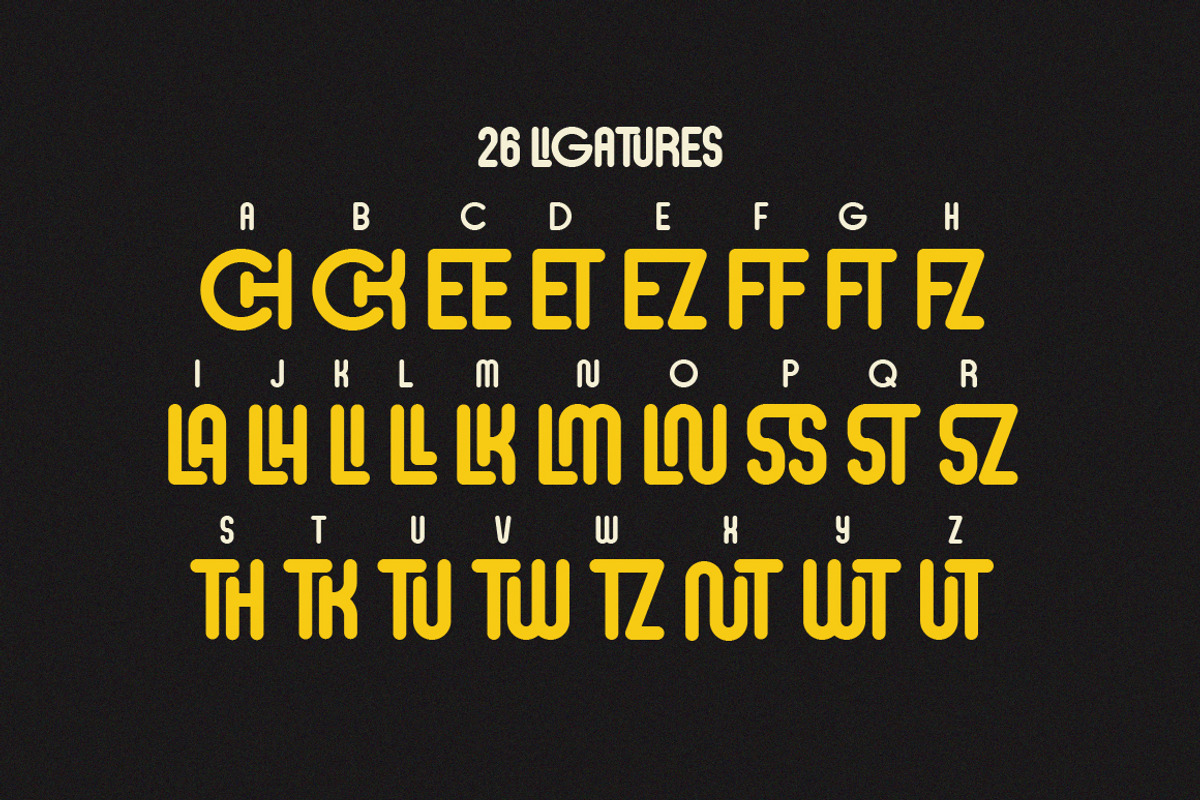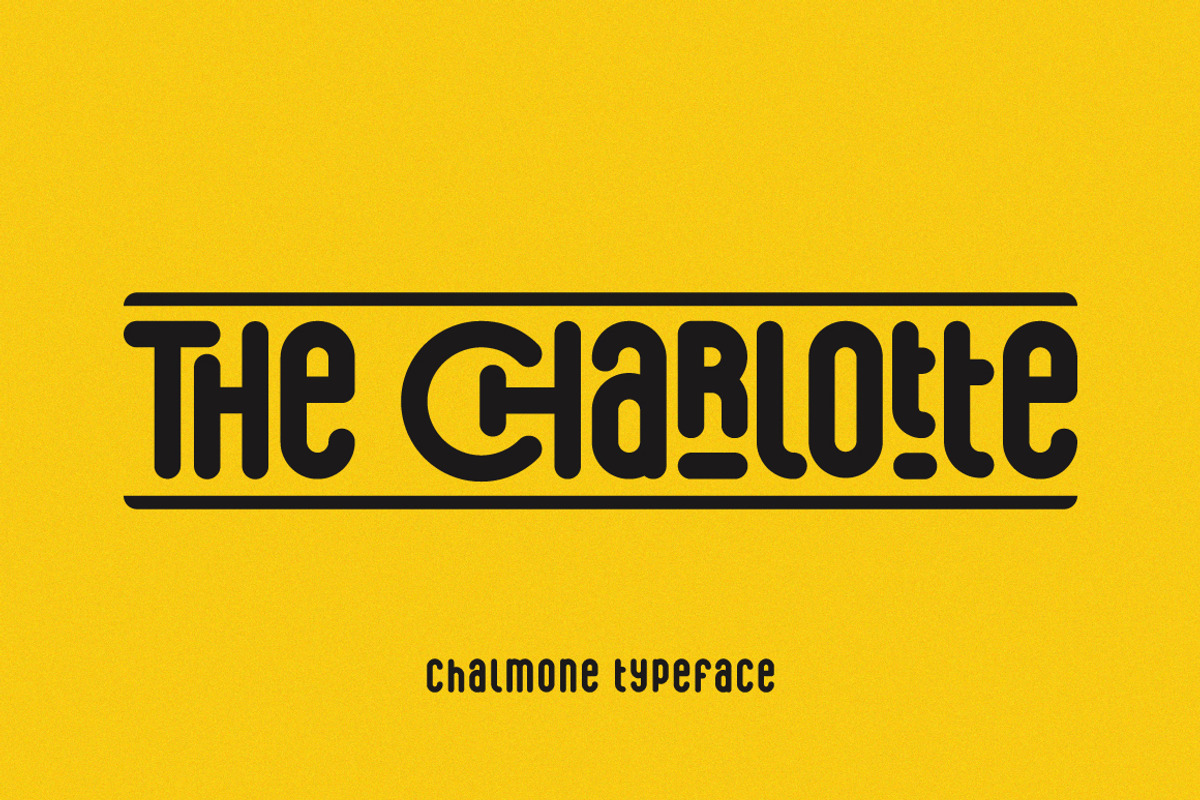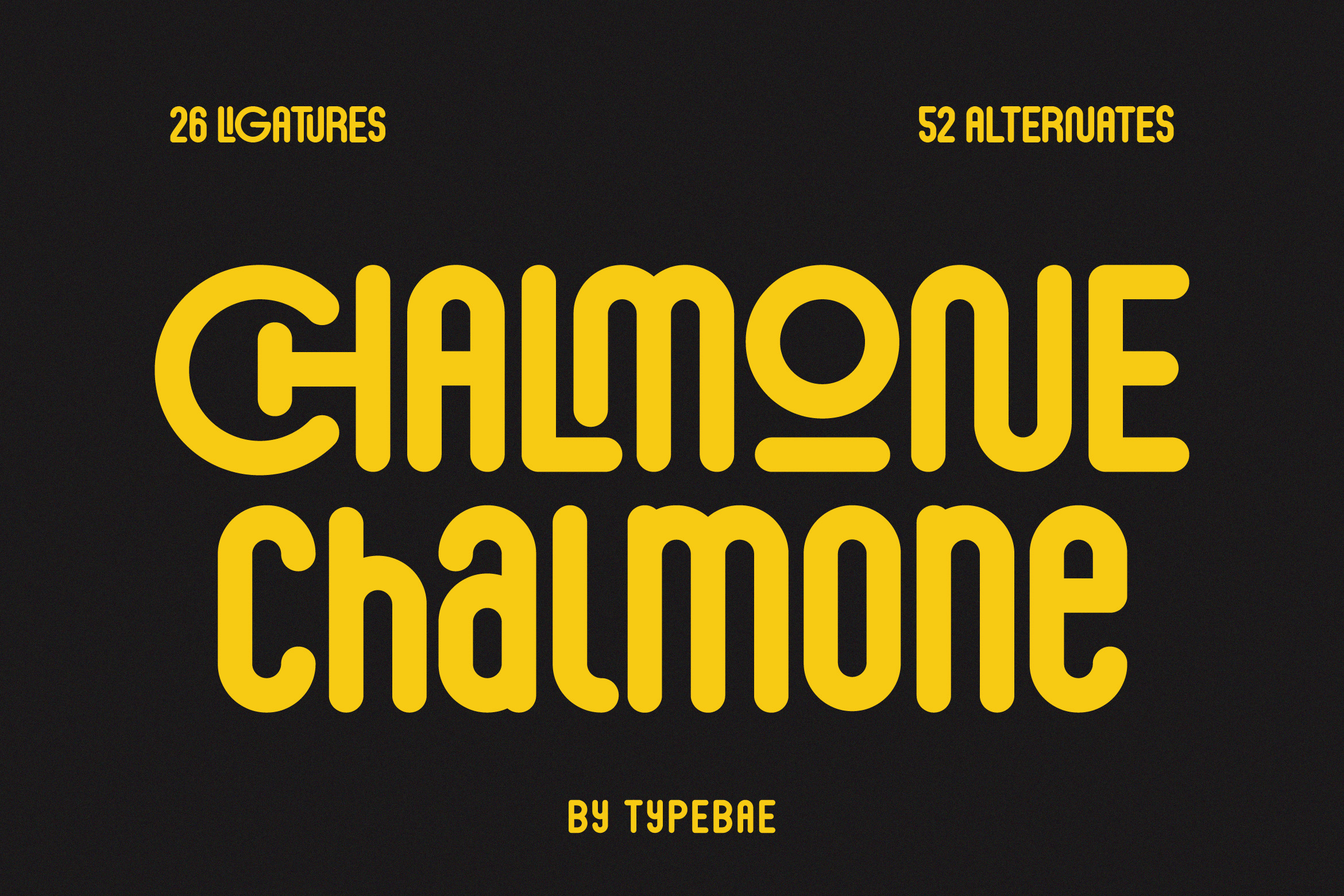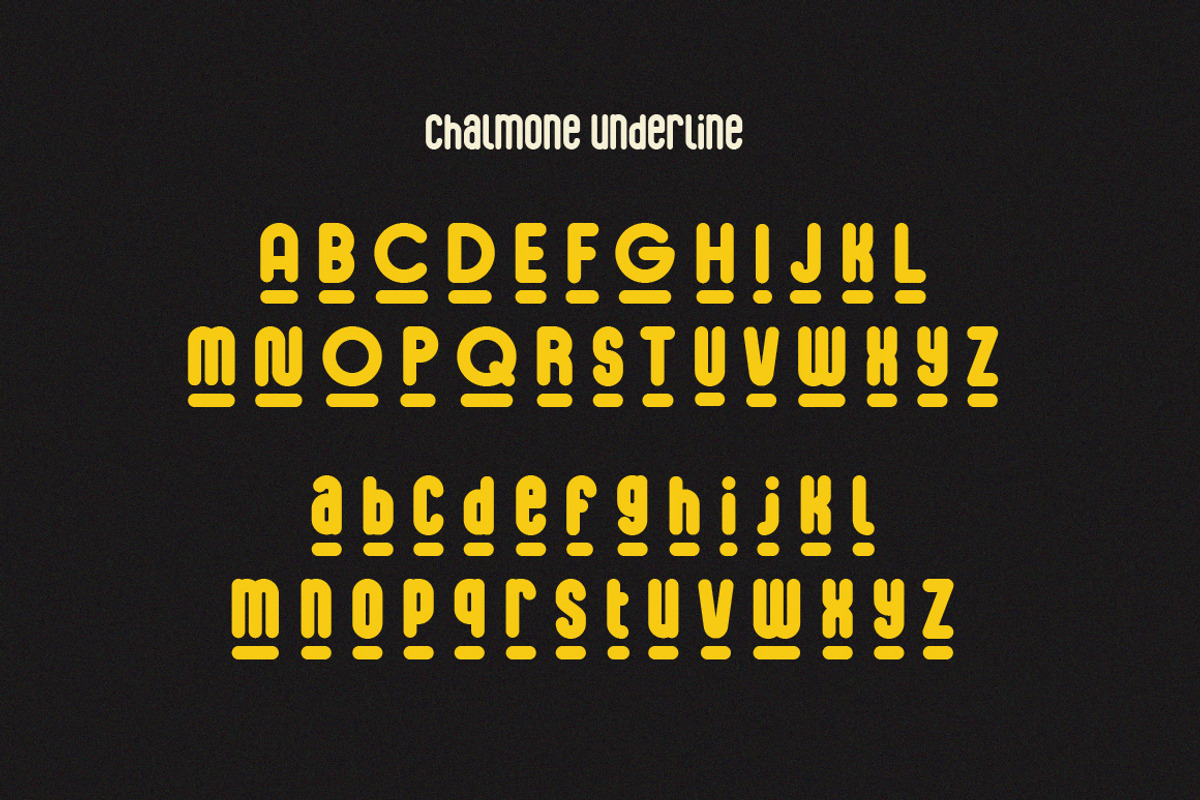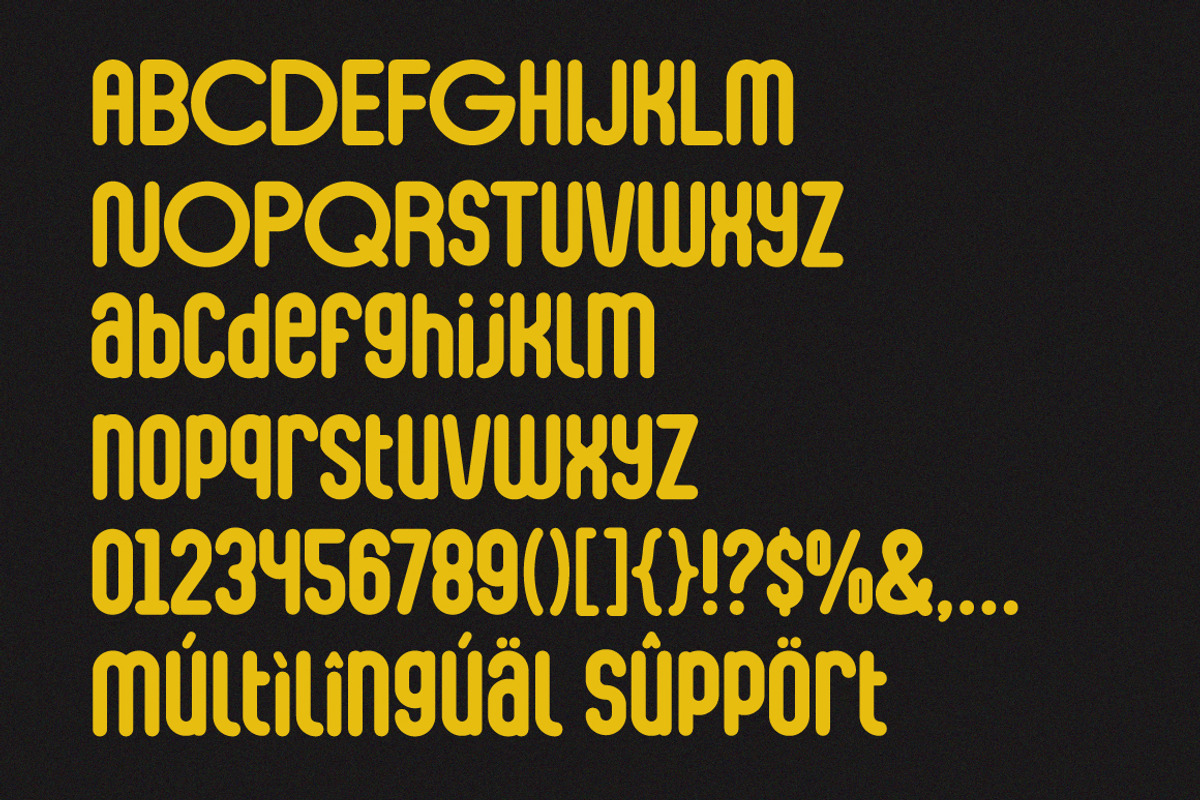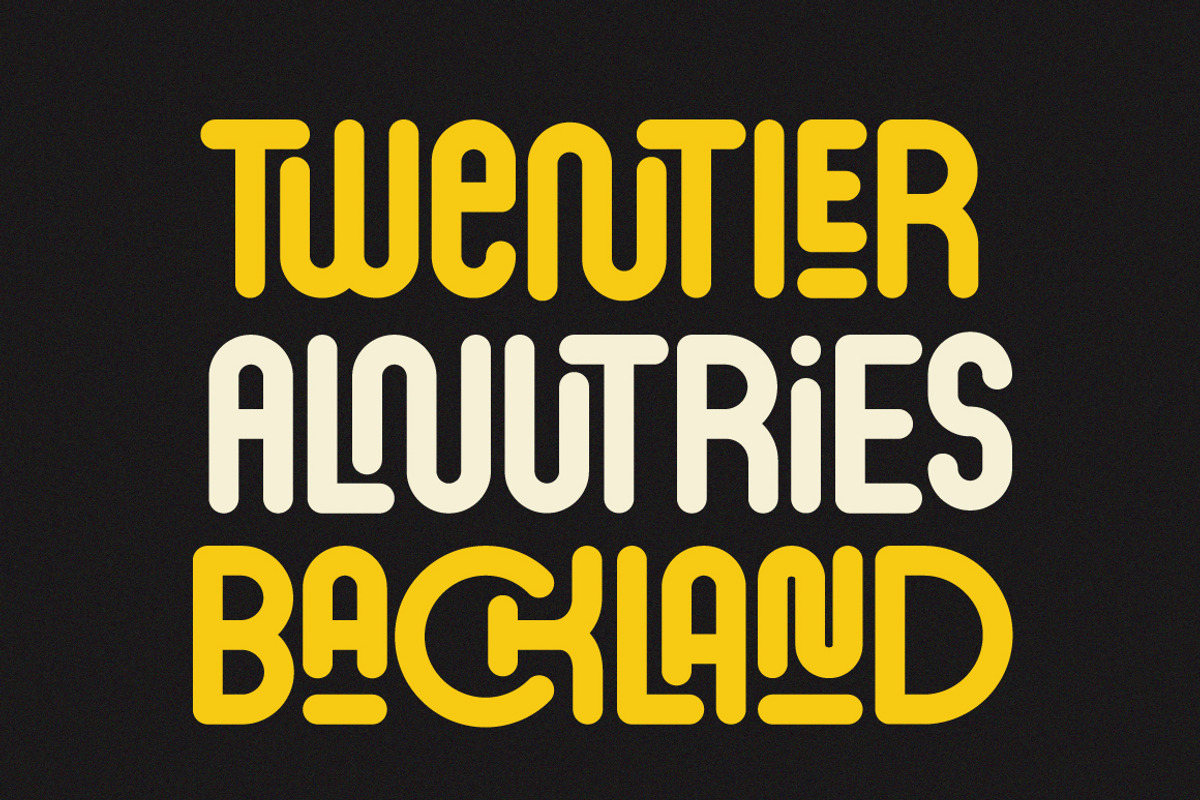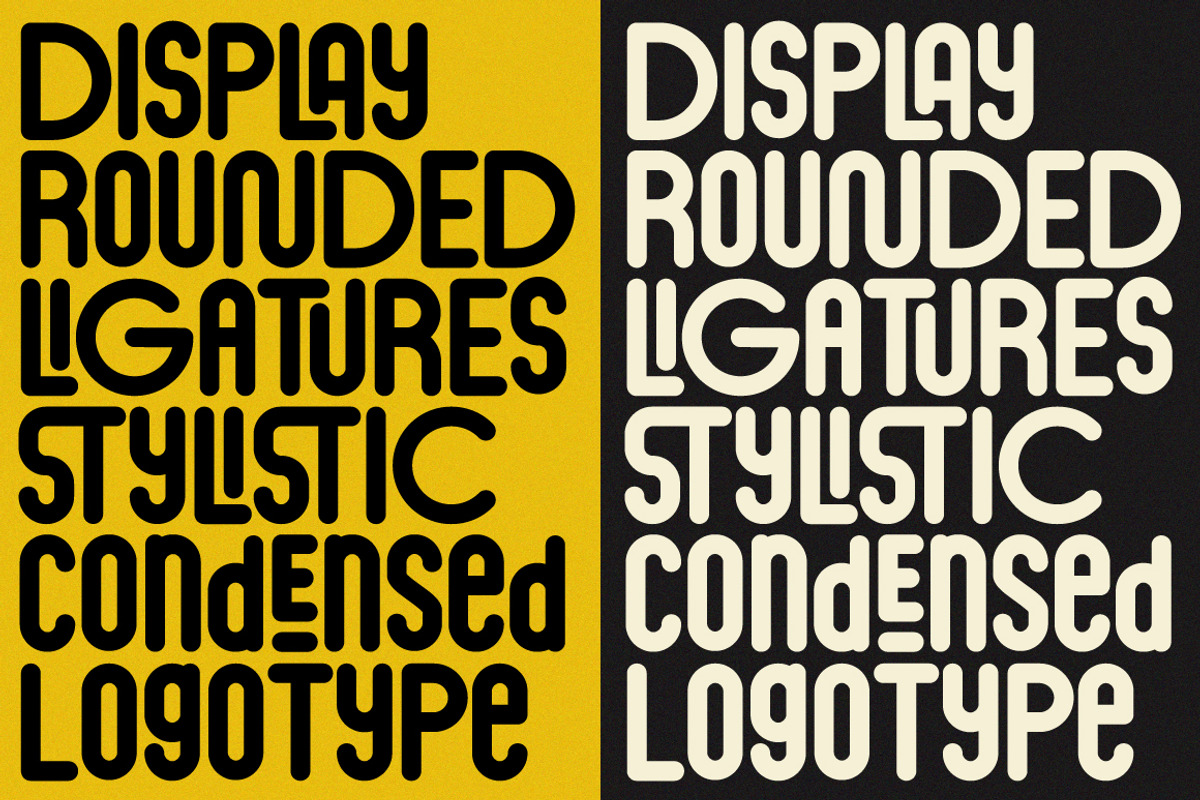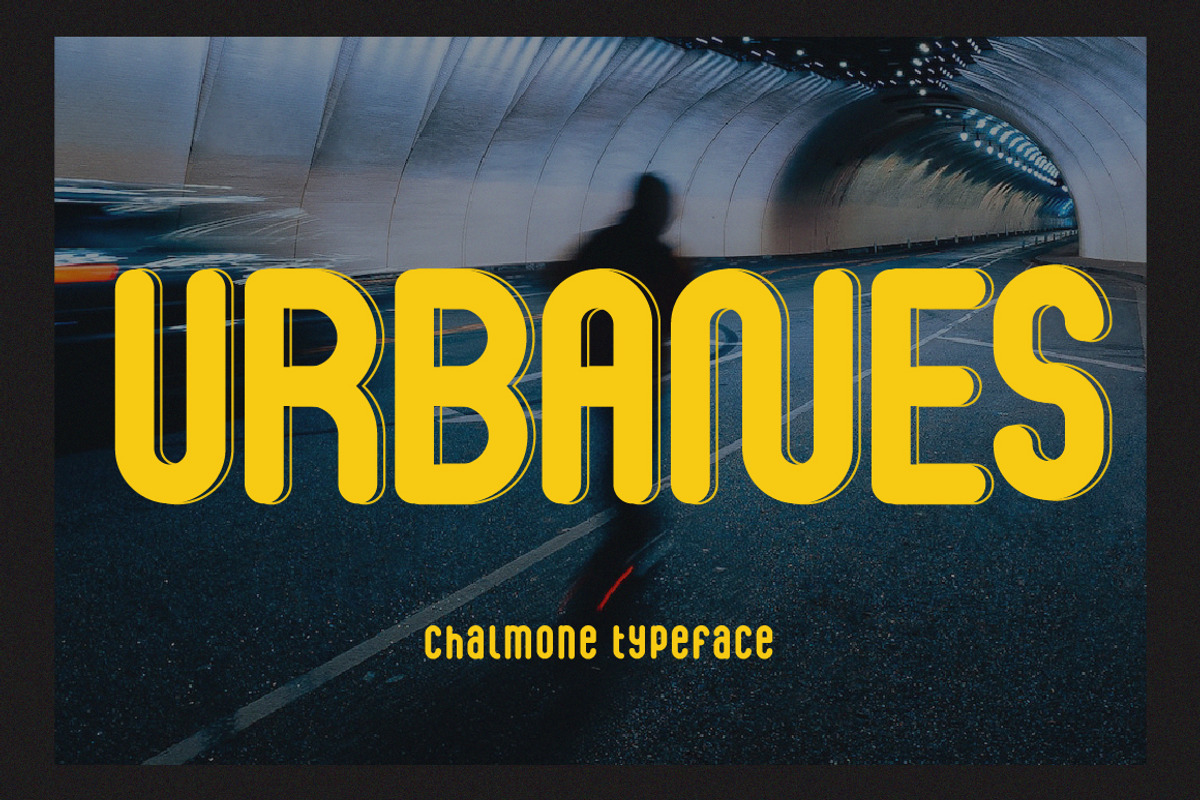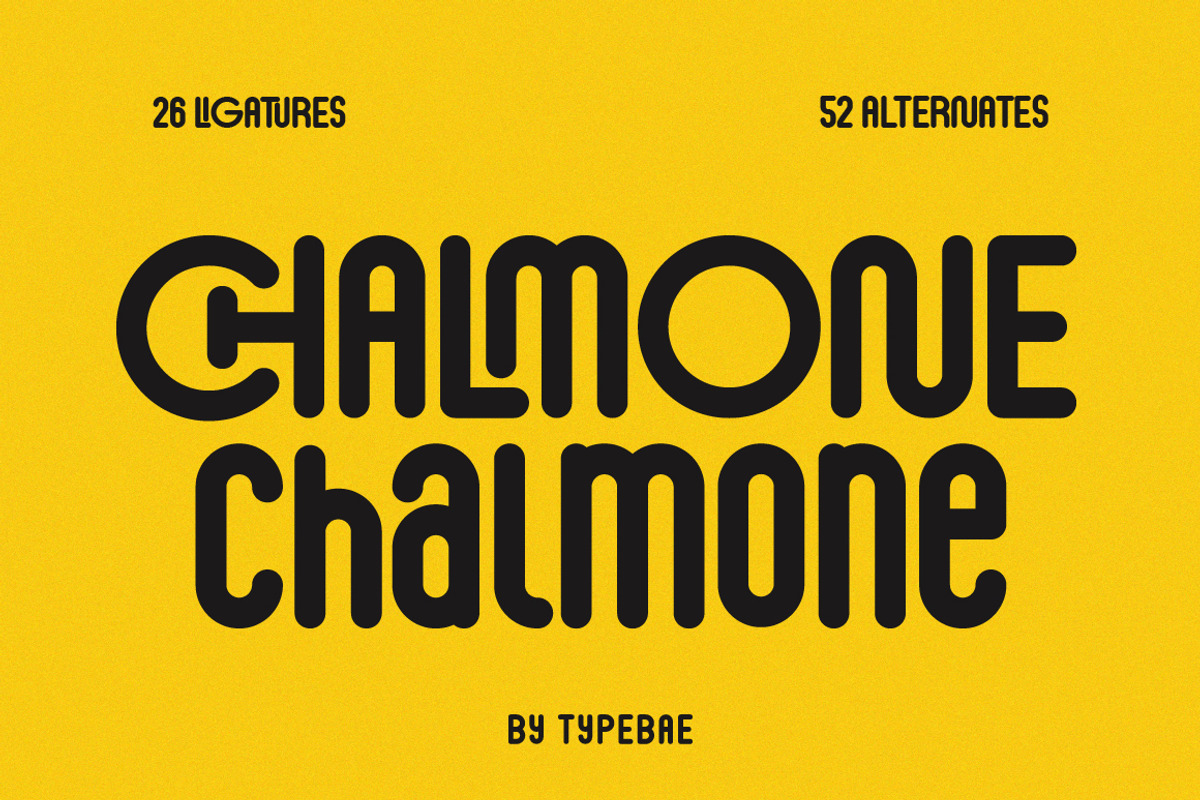
Chalmone - Condensed Rounded Font
Chalmone is a condensed and rounded sans-serif font with a bold and distinctive personality. It features 26 unique ligatures and alternative underlined fonts. This font is intentionally designed for use in larger point sizes, yet it doesn't lose its charm even in smaller point sizes, allowing you to be more expressive in your design projects.